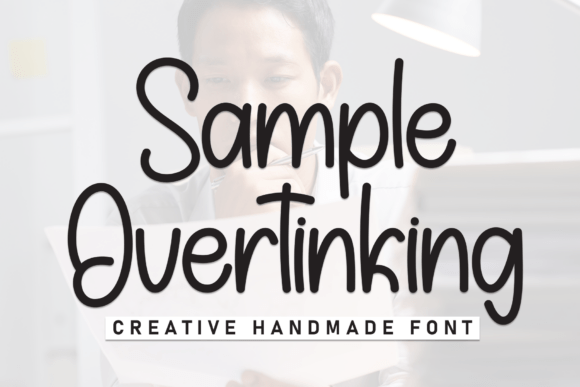
Sample Overtinking: A Bold Display Choice
First Impressions and Visual Personality
When I first laid eyes on Sample Overtinking, it struck me as a font with a strong, almost theatrical presence. The letters are bold and have a slightly vintage feel, reminiscent of old movie posters or classic signage. This typeface exudes a sense of nostalgia and grandeur, making it perfect for projects that need to make a dramatic statement.
Mood and Project Suitability
Sample Overtinking creates a mood that is both commanding and elegant. It’s the kind of font that can transform a simple design into something memorable. For branding, it could be ideal for a luxury brand or a high-end product where a touch of sophistication and impact is needed. In editorial design, it can serve as a striking headline or a key element in a magazine spread.
Real-World Performance
In real-life work situations, Sample Overtinking holds up well in various contexts. For logo design, its distinctive style can help create a unique and recognizable brand mark. In packaging design, it can add a premium feel to labels and boxes, especially for products that aim to stand out on the shelf. For posters and flyers, it can be a powerful tool for grabbing attention and setting the tone for an event or promotion.
Practical Considerations
While Sample Overtinking is versatile, it should be used carefully. It works best in large headlines, short phrases, and decorative accents. Using it for long blocks of text would likely overwhelm the reader. Its bold nature makes it a great choice for brand marks, quotes, and premium packaging. It also shines in social media graphics and digital ads, where quick, impactful messages are key.
Readability and Hierarchy
One of the main concerns with any display font is readability. Sample Overtinking maintains a good balance between style and legibility. However, it’s important to test it in black and white to ensure it reads well without color. Additionally, check how it performs at smaller sizes, as some of the finer details might get lost. When using it in a design, consider the hierarchy; it can serve as a focal point, but should be balanced with more readable fonts for supporting text.
Font Pairing and Design Consistency
To maintain a cohesive look, pair Sample Overtinking with complementary fonts. A clean sans serif font can provide a modern contrast, while a serif font can add a touch of elegance. For a more casual or personal feel, a handwritten font or script font can work well. Experiment with different combinations to find what best suits your project. Remember, consistency is key in building a strong brand identity.
Engagement and Audience Trust
A well-chosen font like Sample Overtinking can significantly enhance the visual mood and engagement of a design. It can help build audience trust by presenting a professional and polished image. Whether you’re designing for a digital product, printable design, or writing content, this font can add a layer of sophistication and appeal.
Final Designer Notes
- Test Sample Overtinking in black and white to assess its legibility.
- Check its performance at small sizes to ensure clarity.
- Use it on real mockups to see how it integrates with other elements.
- Compare uppercase and lowercase to see which works best for your project.
- Review spacing and kerning to fine-tune the layout.
- Experiment with pairing it with different font styles to find the right balance.
Overall, Sample Overtinking is a robust and visually striking display font that can elevate a wide range of design projects. With careful consideration and thoughtful use, it can become a valuable asset in your design toolkit.